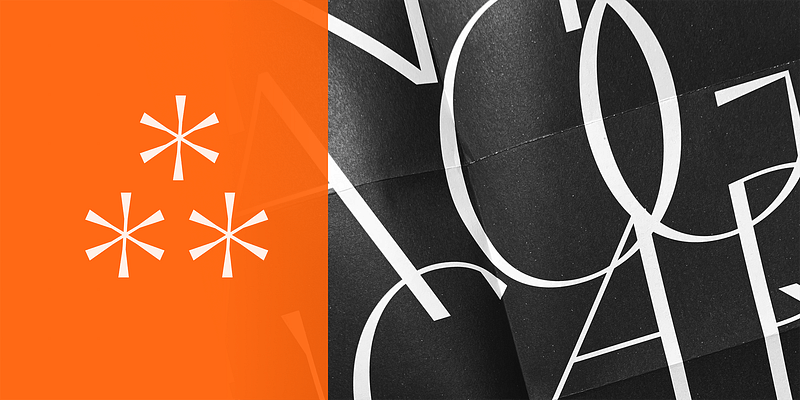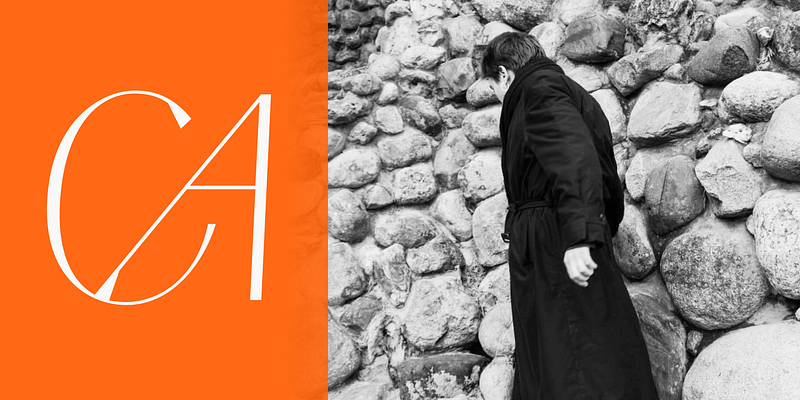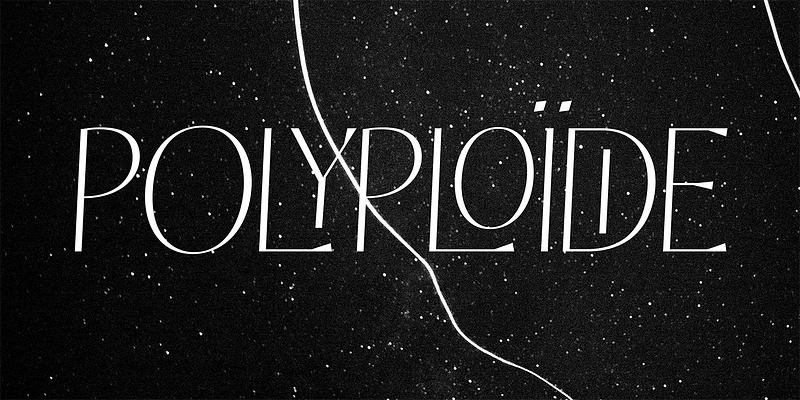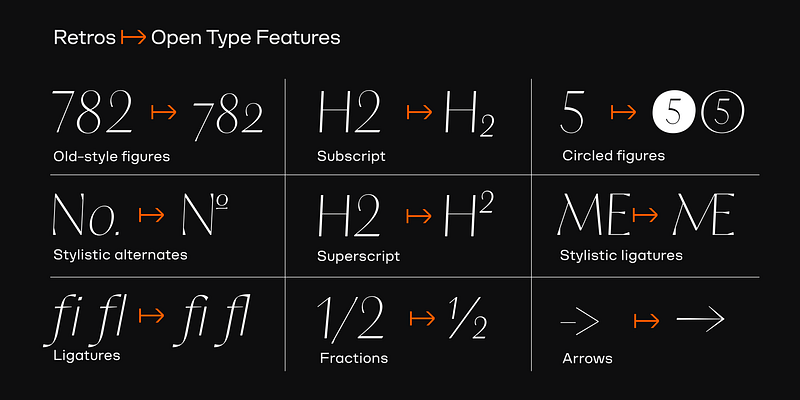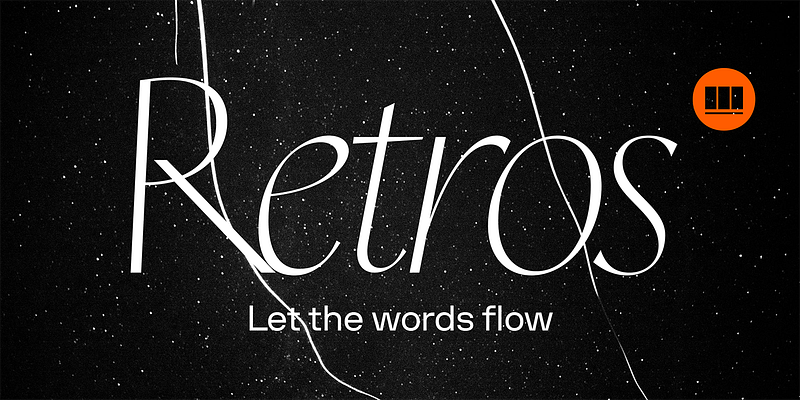
The Retros typeface was designed to unite two distinct lettering styles: the fluid, contrasting strokes of broad-nib brush calligraphy and the sharp, precise lines of chiseled stone carving. This font merges the softness of a brush gliding over paper with the strength and precision of a chisel carving into stone, blending these two elements into its elegant curves.
The bold contrast was gently reduced to achieve a more natural look, similar to that of a broad-nib pen. The character proportions were inspired by the calligraphy of East German, Hungarian, and Bulgarian artists of the 1960s, as well as modern English calligraphy. In addition, inscriptions carved on tombstones near Karl Marx’s grave in Highgate Cemetery, London, influenced the design. This diverse mix led the author to experiment with various forms of dynamic and expressive strokes.